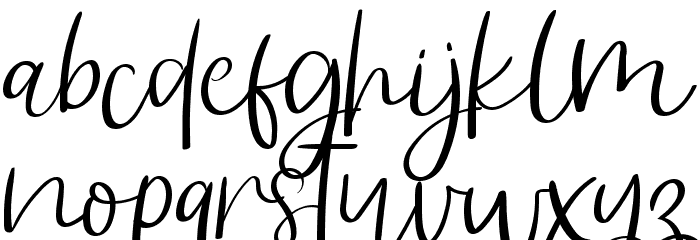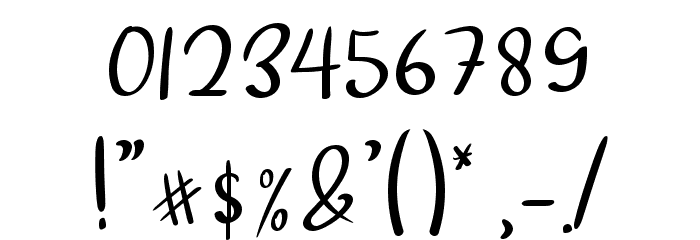
boba lova Font
This font exudes a playful and casual handwritten style, characterized by its fluid and dynamic strokes. The uppercase letters are bold and slightly slanted, giving a sense of movement and energy. The lowercase letters maintain a consistent flow, with some characters featuring unique loops and swirls that add personality. Numbers are clear and legible, while the special characters blend seamlessly with the overall style. The font's organic feel makes it ideal for projects that require a personal touch, such as invitations, greeting cards, or branding for creative businesses.
A playful, handwritten font with dynamic strokes and a casual style.
- Proposed Projects: Ideal for invitations, greeting cards, creative branding, and personal projects.
- Overall Style: Casual, Playful
- Use Case: Headlines, Logos, Invitations